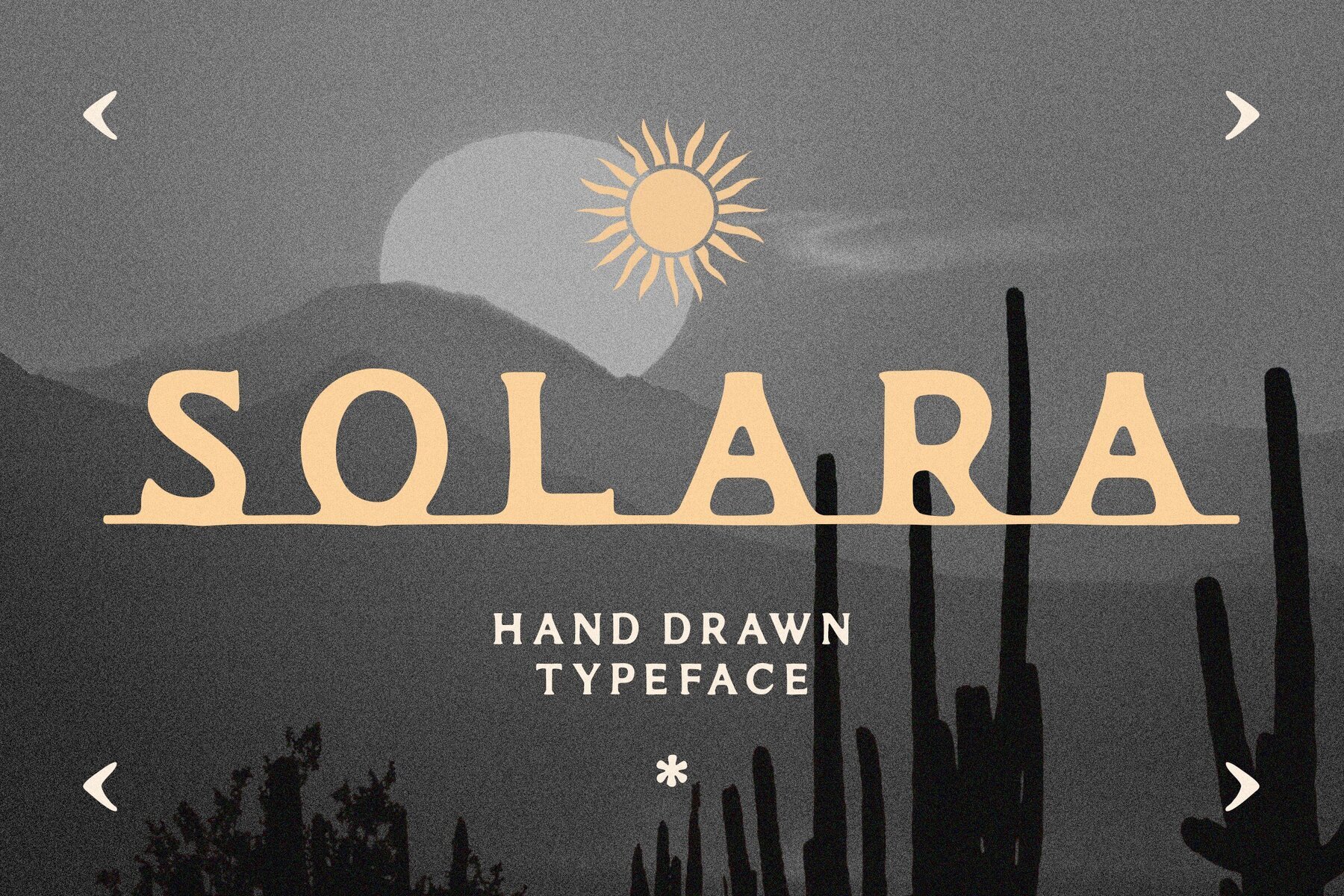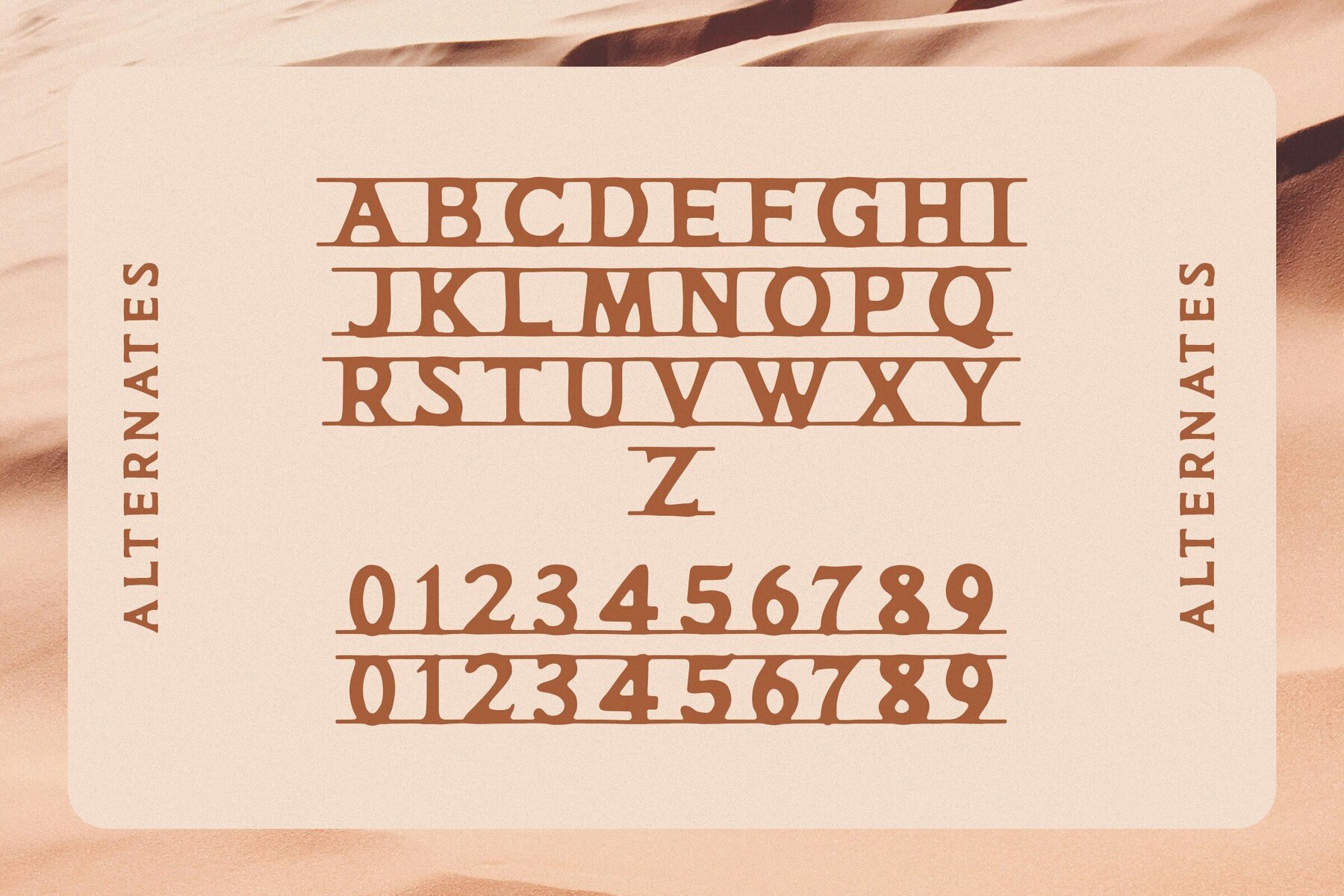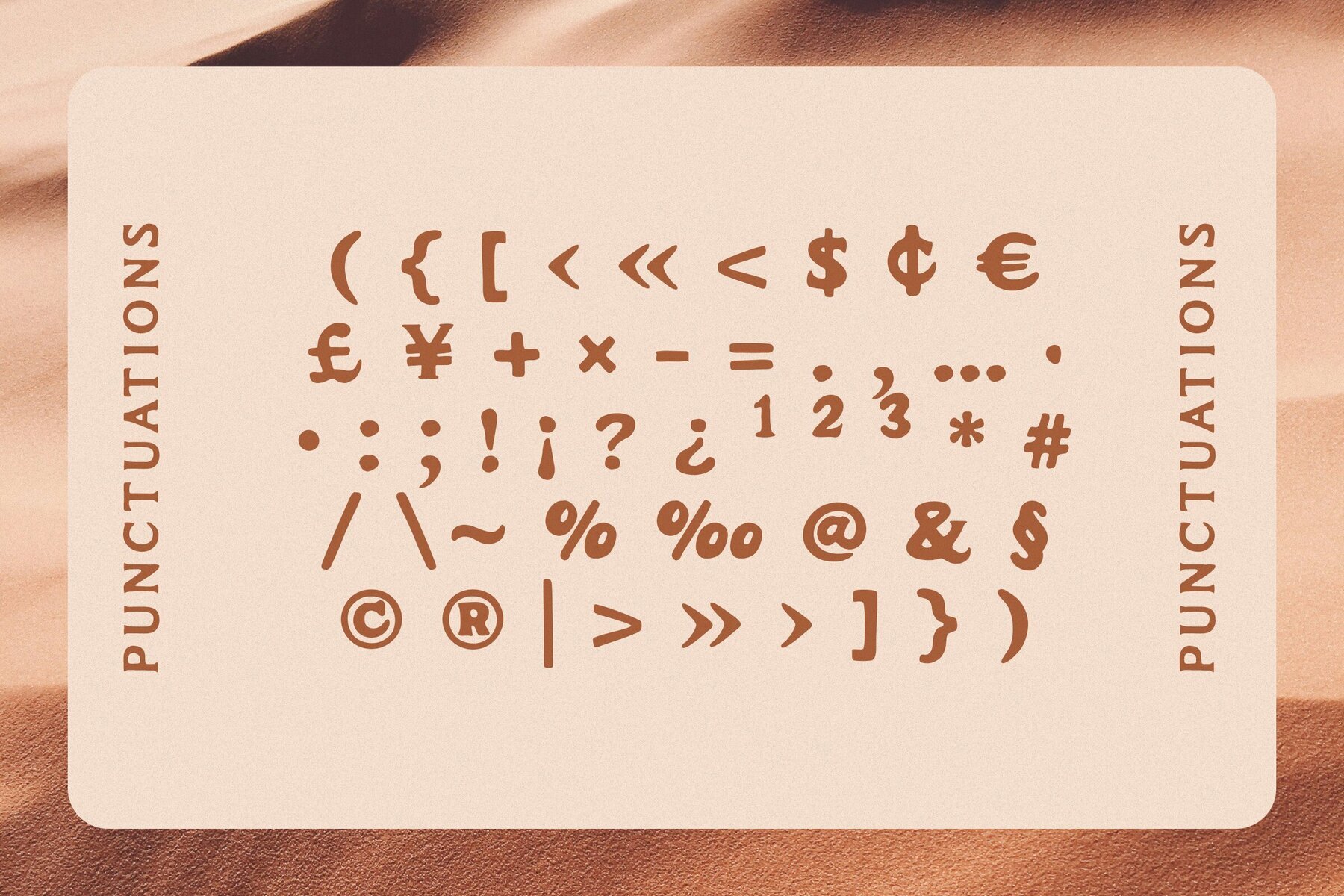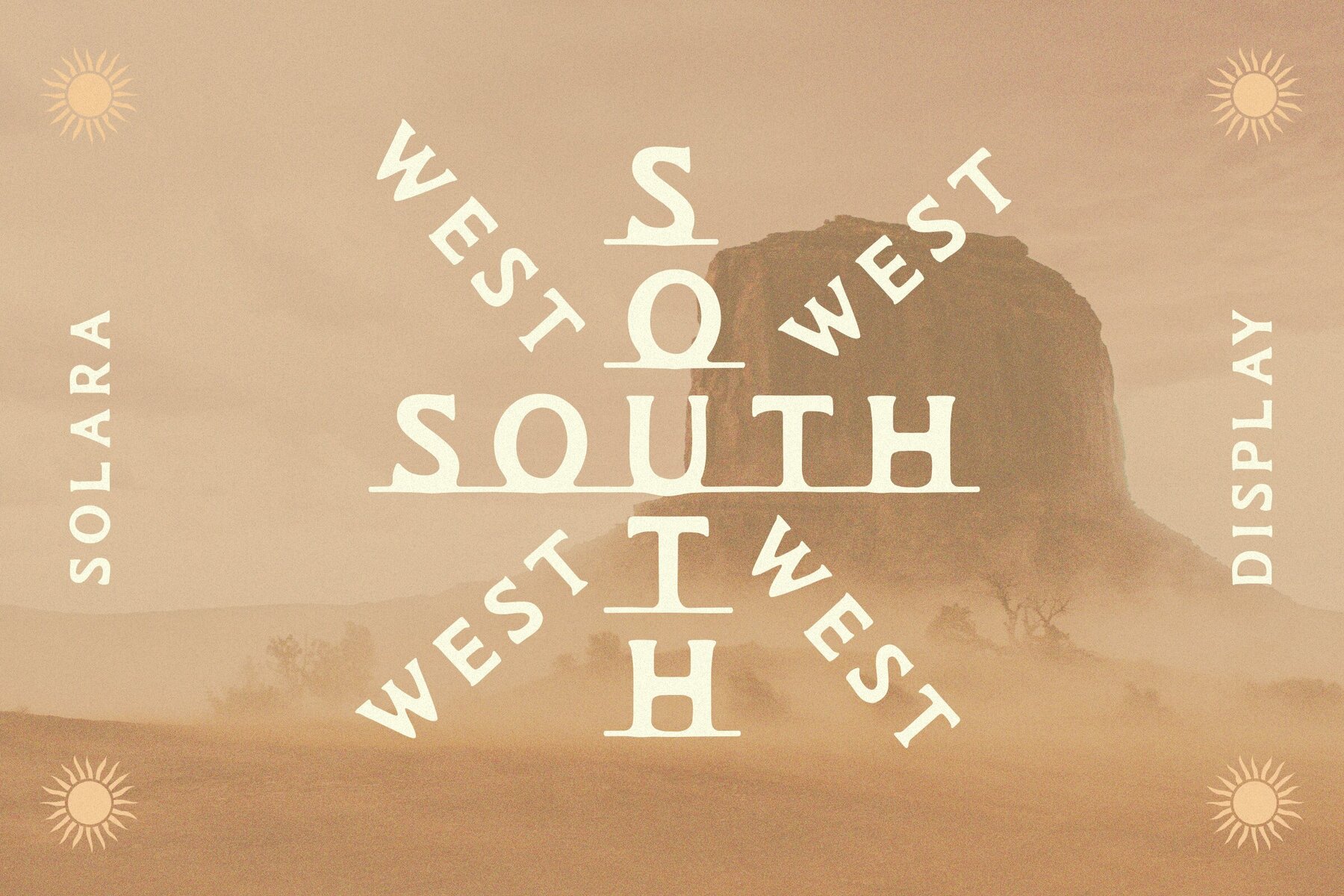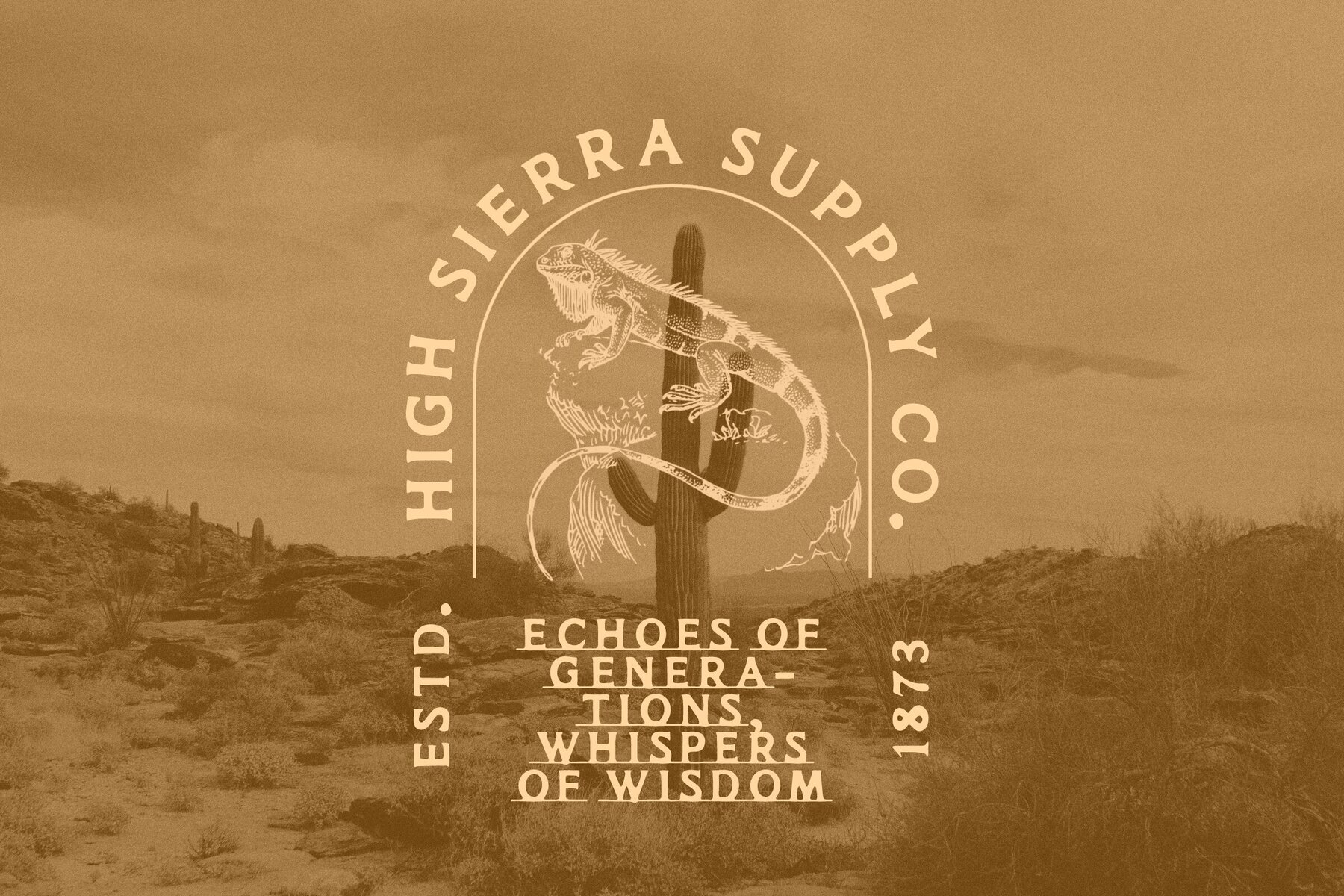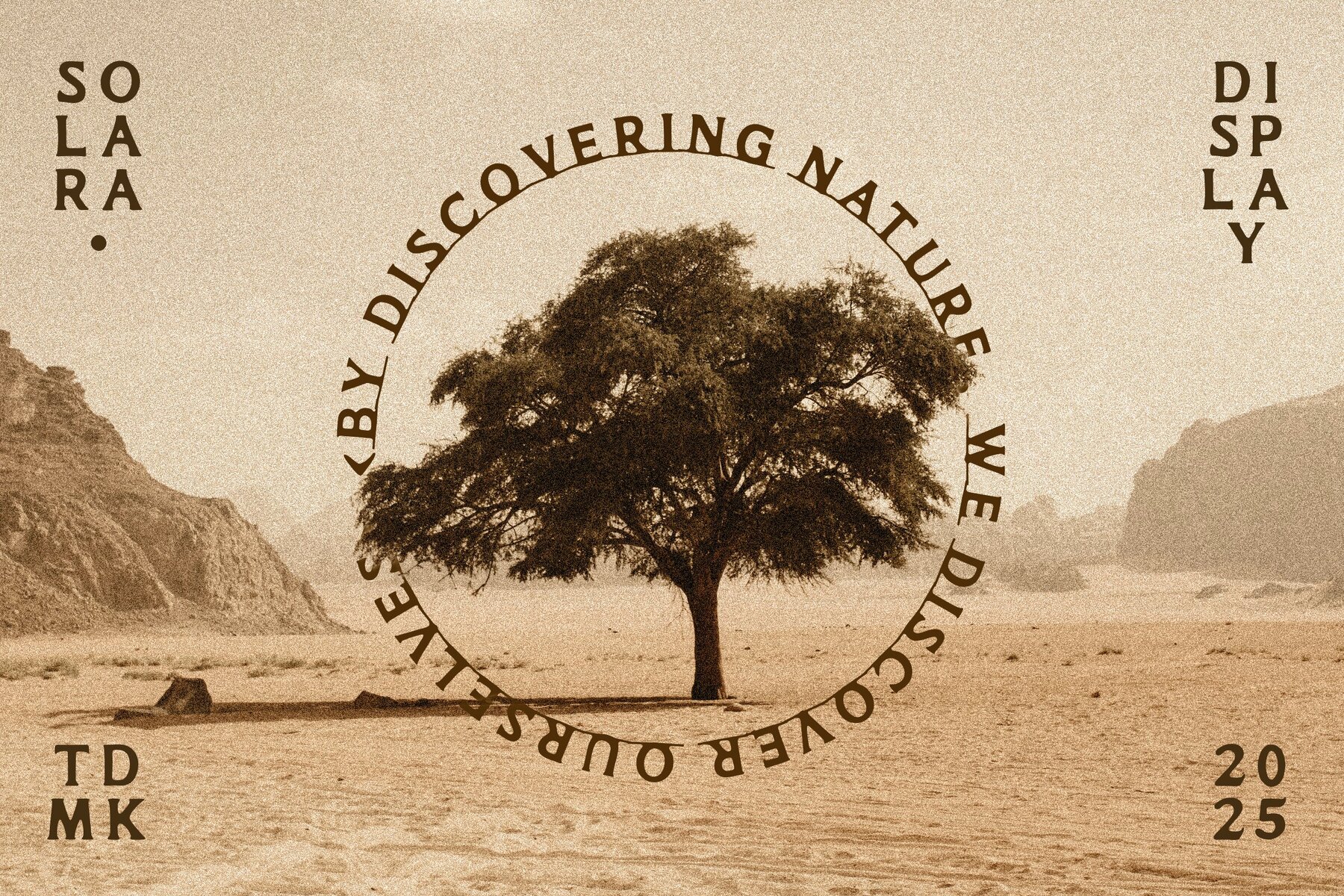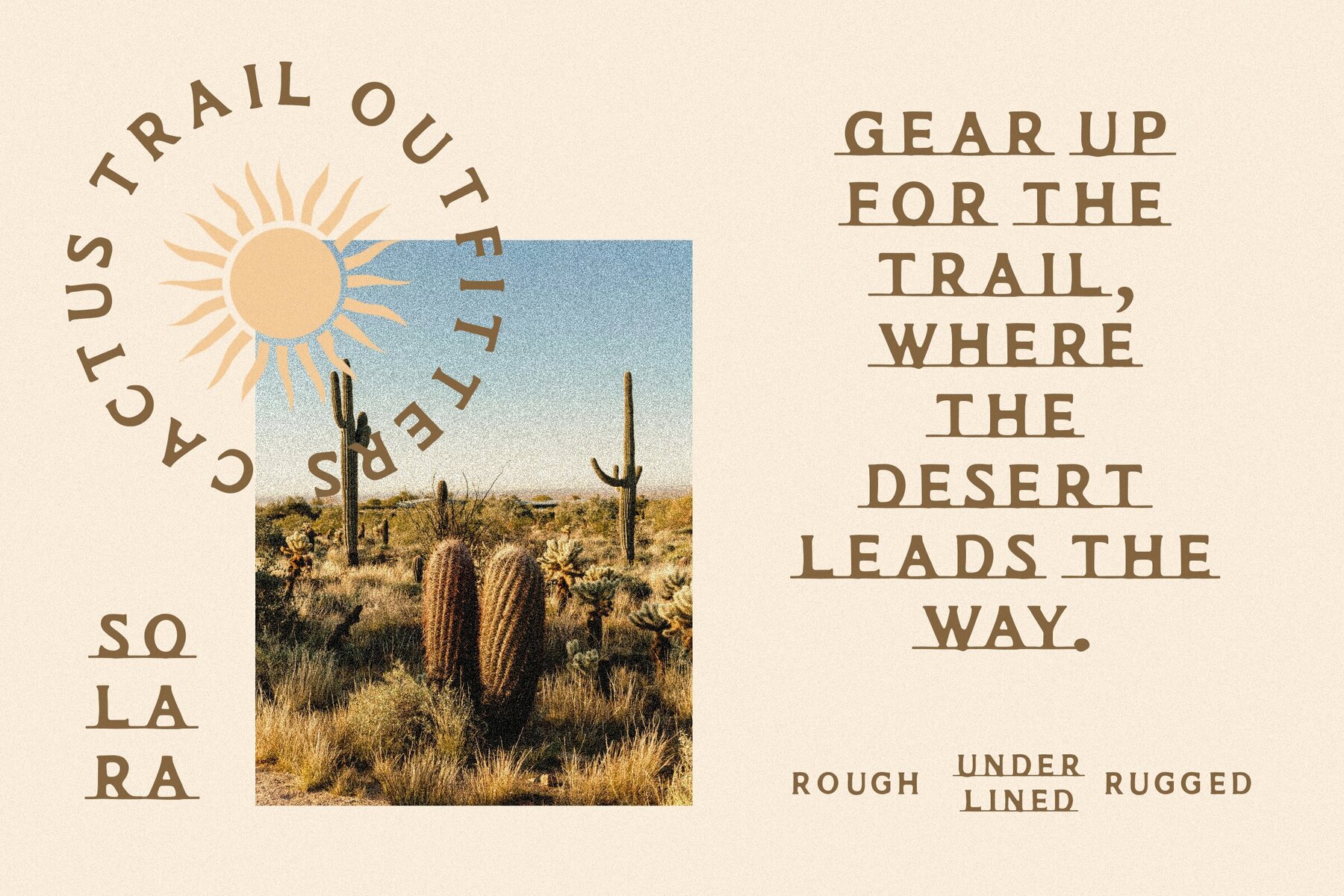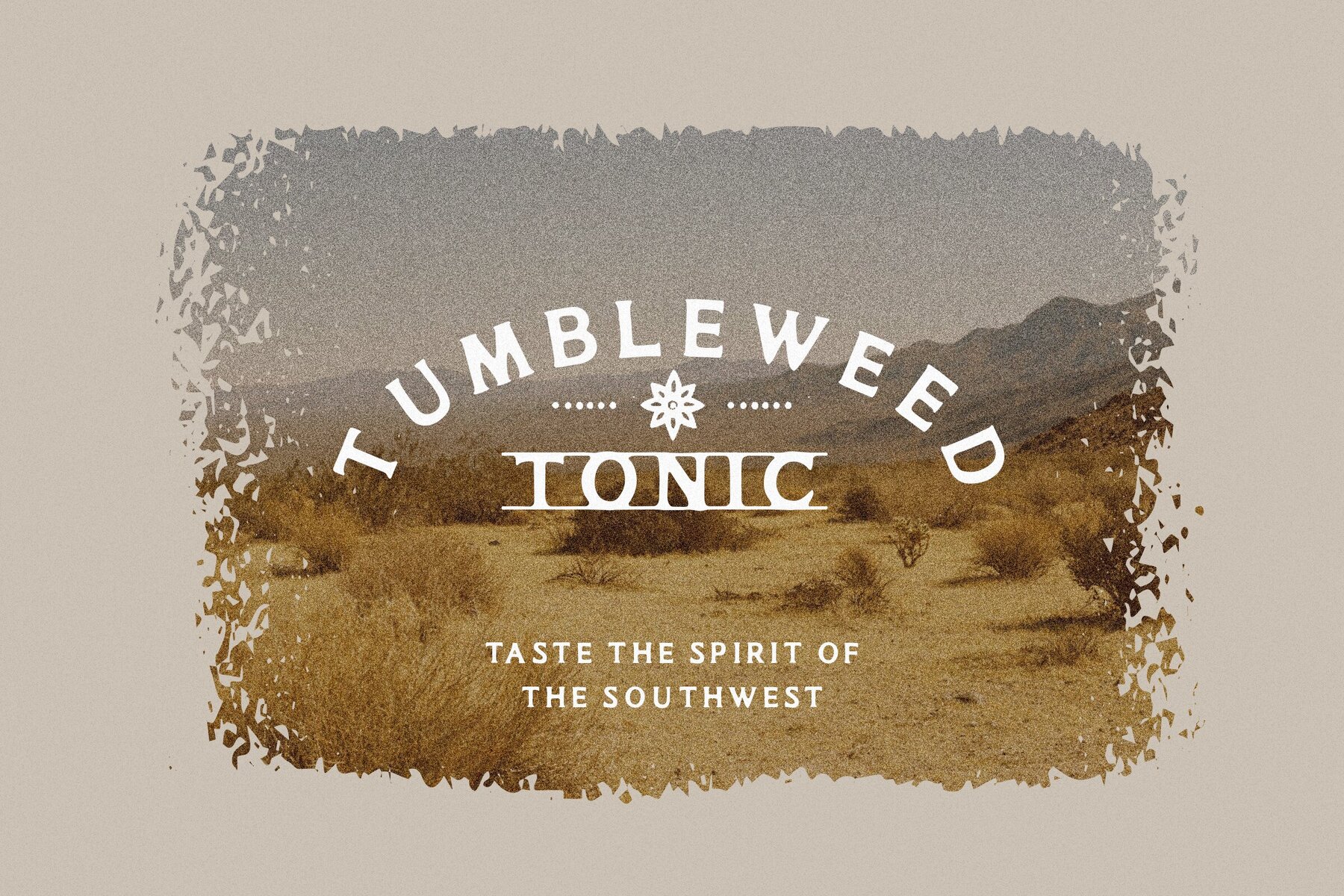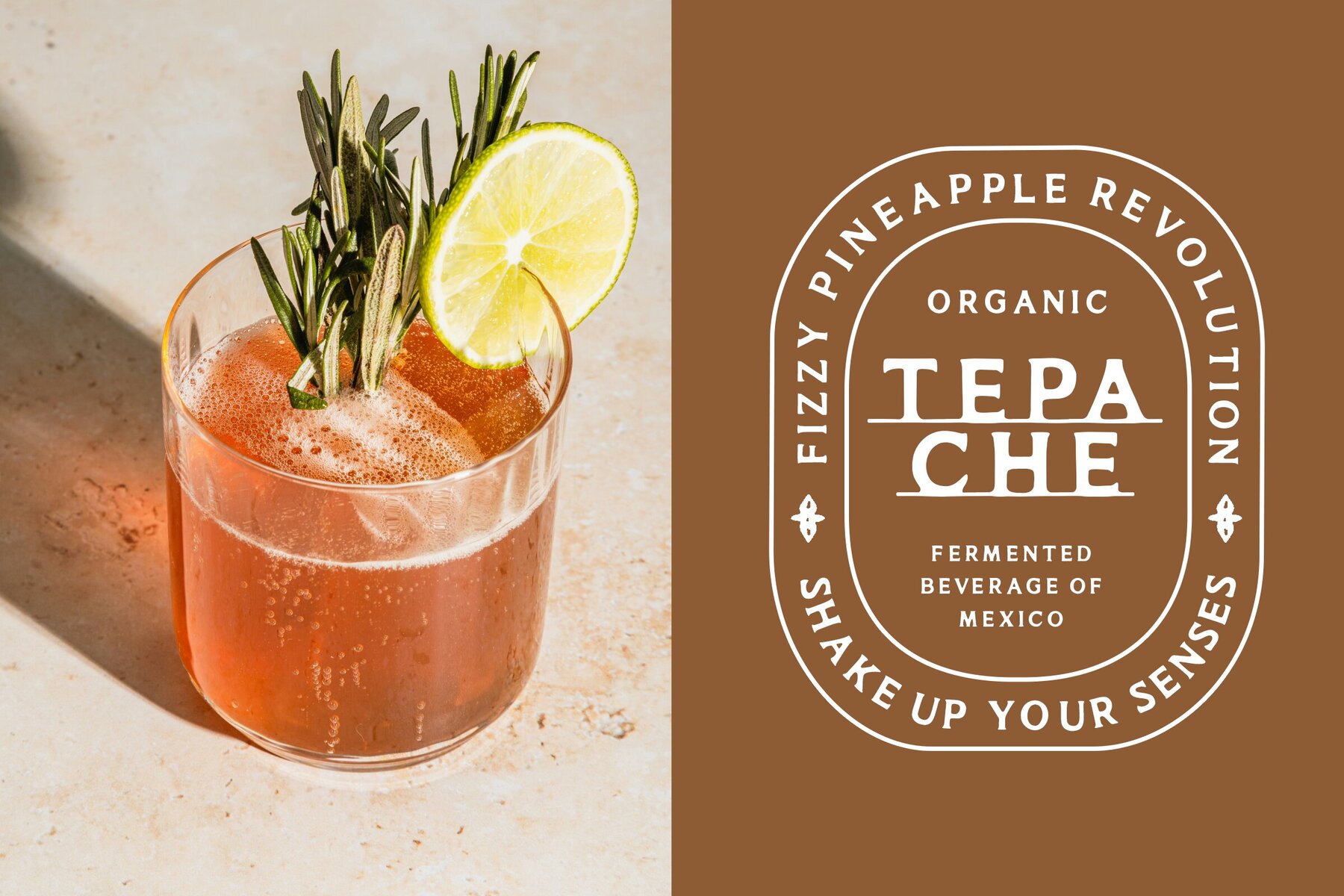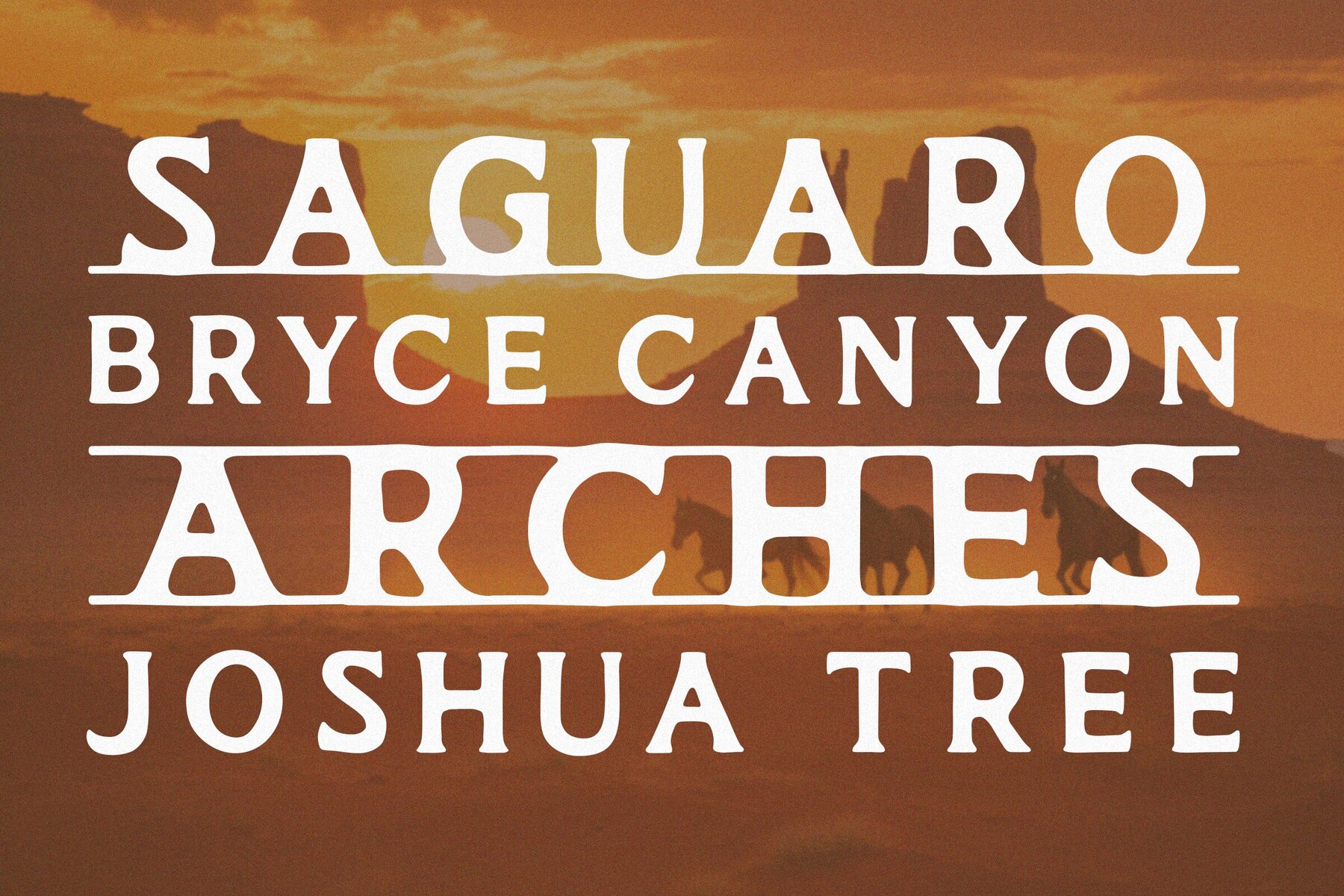
Solara Font
Solara Regular
Solara is a hand drawn typeface inspired by the tradition of the American Southwest. It features rugged characters with uneven and weathered structure. There are 3 versions of Solara, with the capital characters being standard, lowercase characters featuring an underline, and an alternate set of characters which include a combined underline and overline. These characters are accessed using your Glyphs/Type panel. Bring an organic hand drawn aesthetic to your next logo, branding, packaging or label design project.